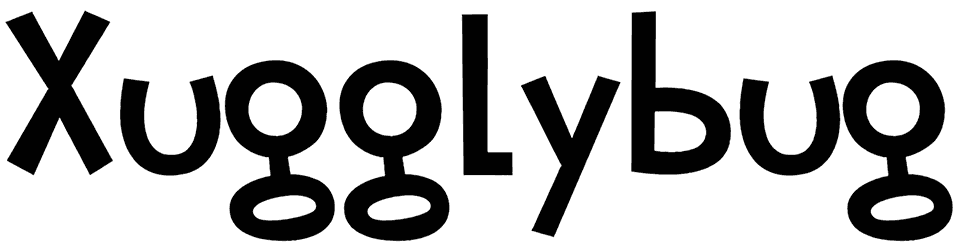
Xugglybug Font
Xugglybug is over here to permeate your heart as a cartoon font with its bold and funny face. With a doodle face, this fancy font will throw a comical and imaginary mood to your creative projects with happy themes. Put Xugglybug on posters, cartoon screens, comics, or more of the same, and enjoy a cheerful time.
Xugglybug is one of the silly names in the world.